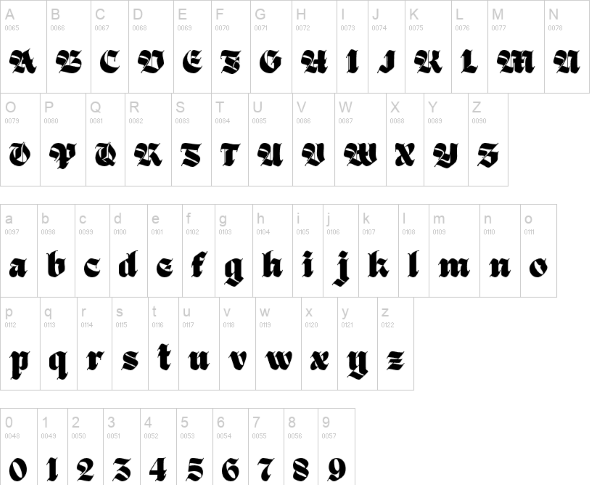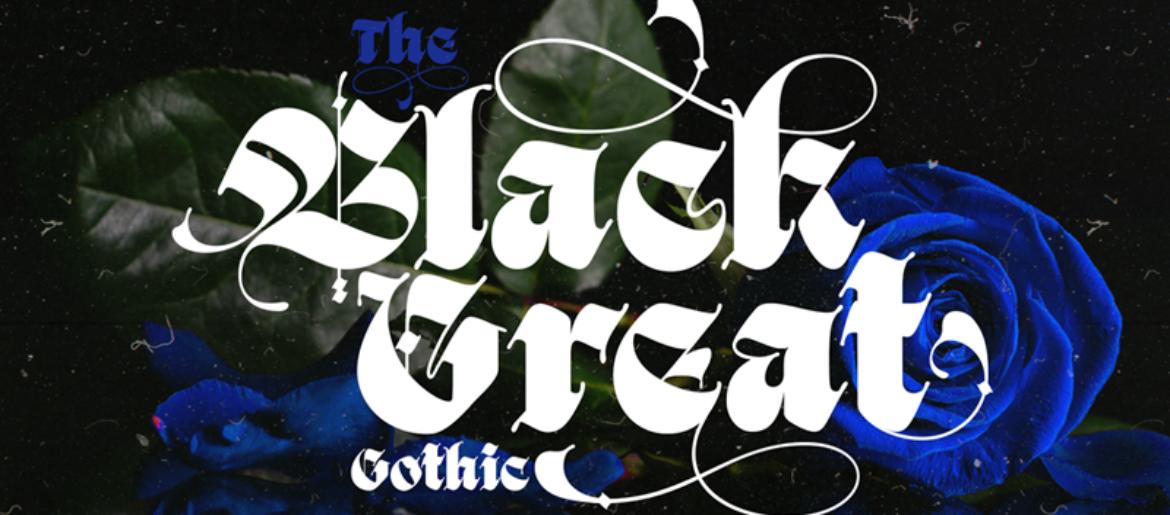
Black Great Font
Black Great Font is a bold and imposing blackletter-inspired typeface built to command attention. With thick strokes and a strong, distinctive structure, it delivers a powerful gothic presence. This font is ideal for logos, headlines, posters, tattoos, and branding projects that require intensity, tradition, and a dramatic visual impact.
➤ Style: Medieval